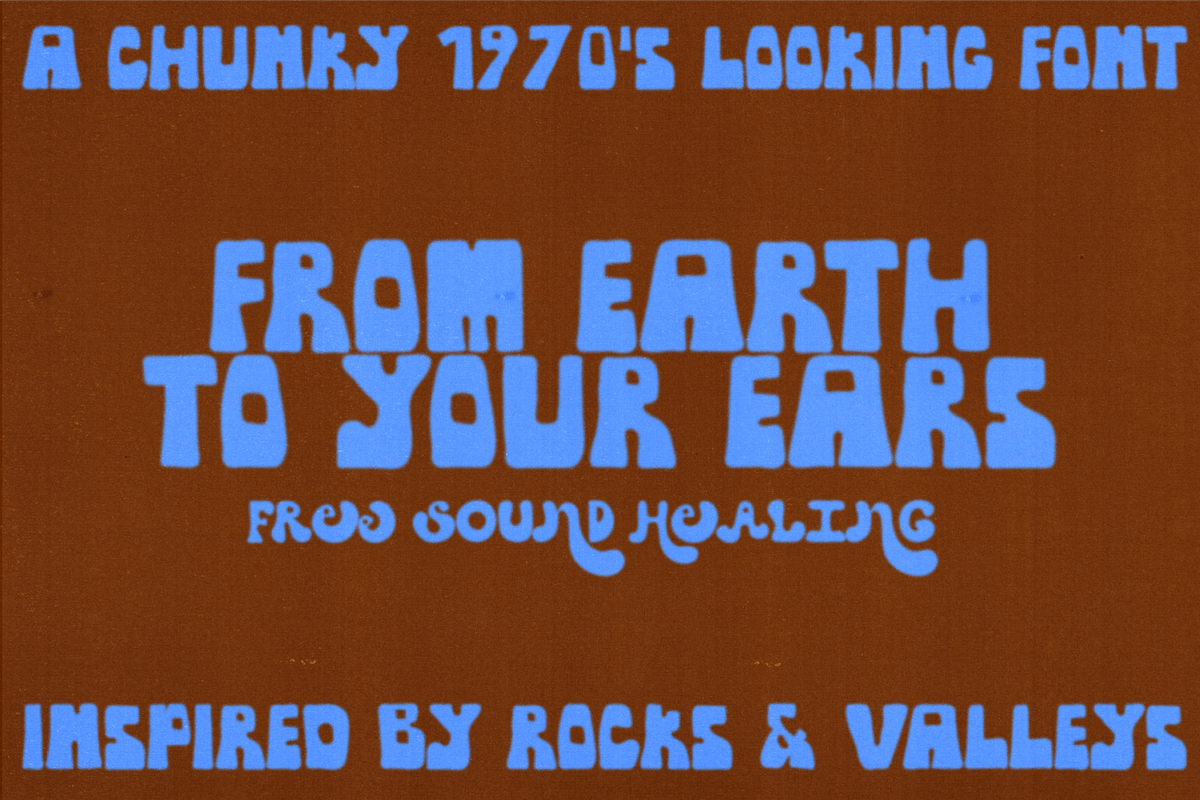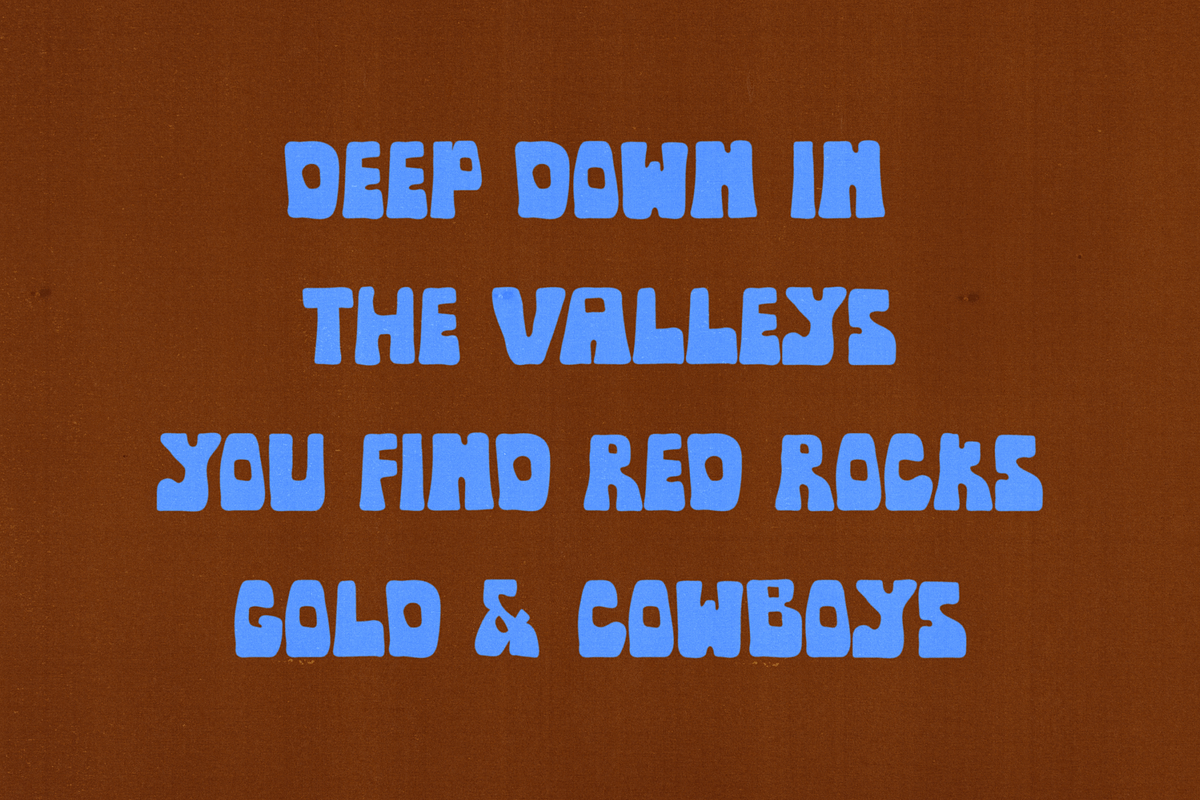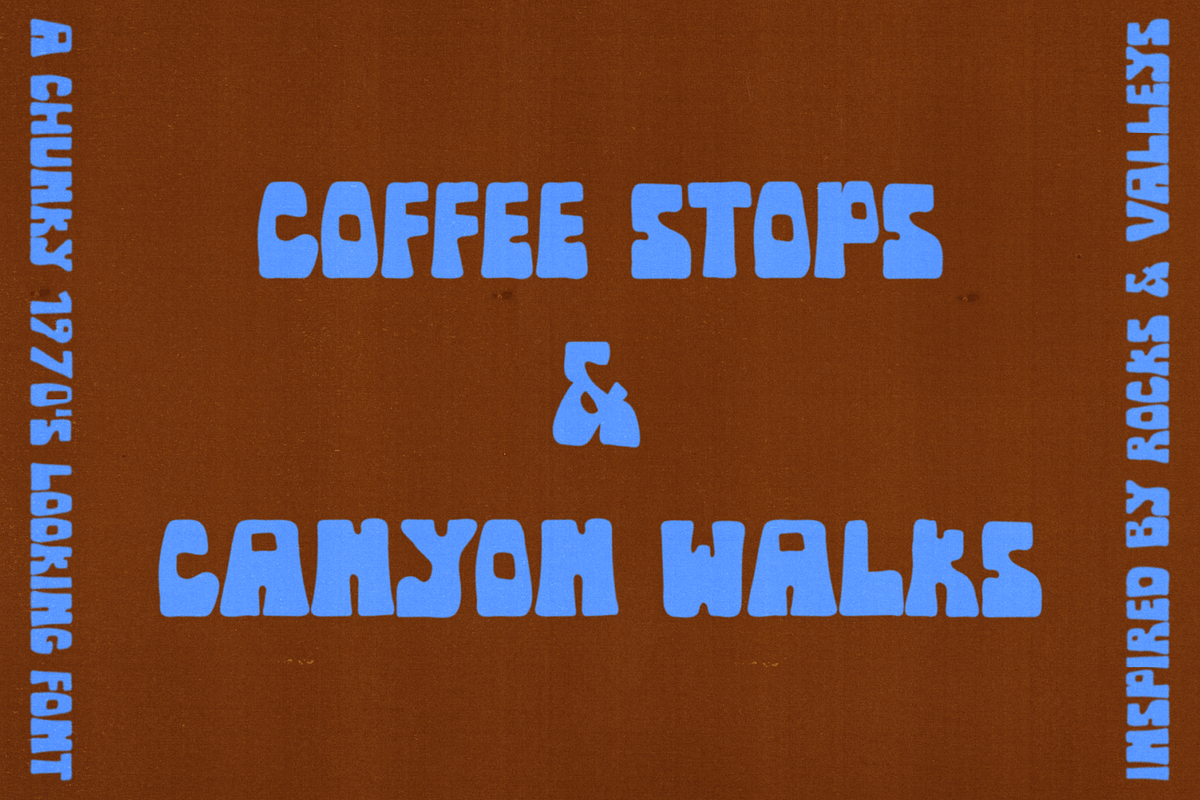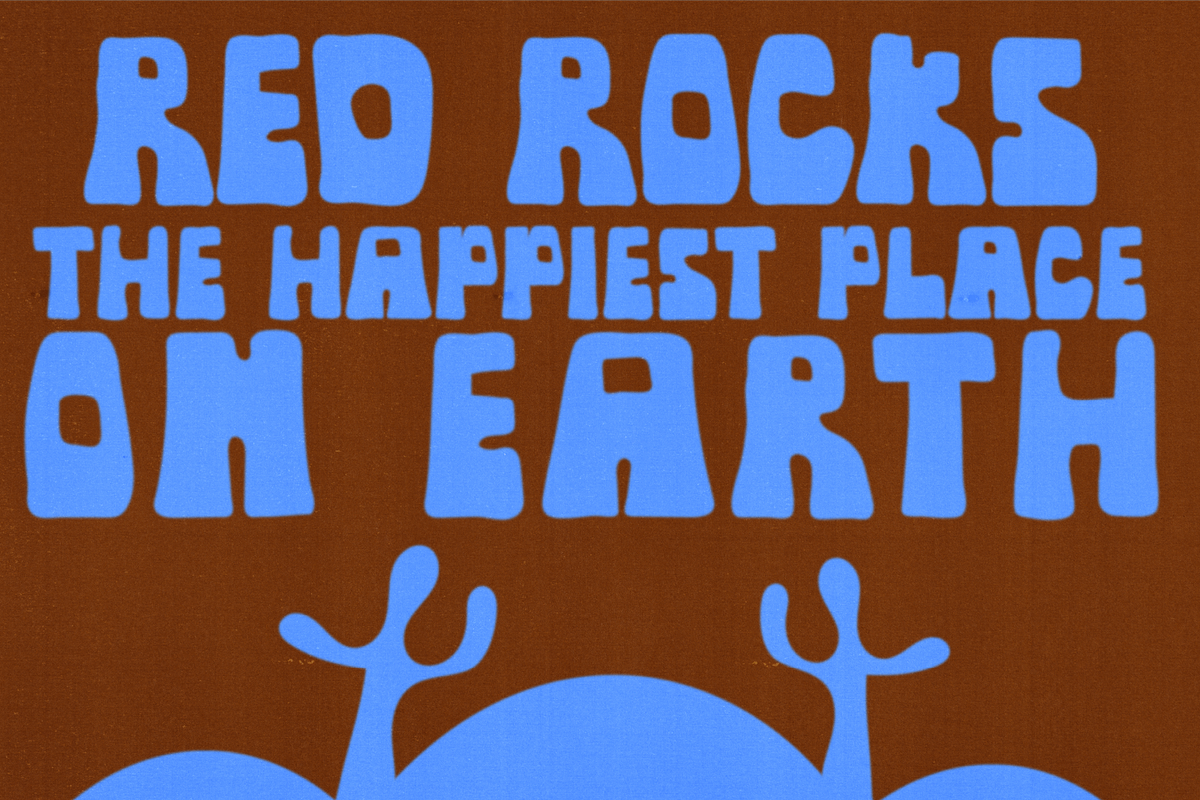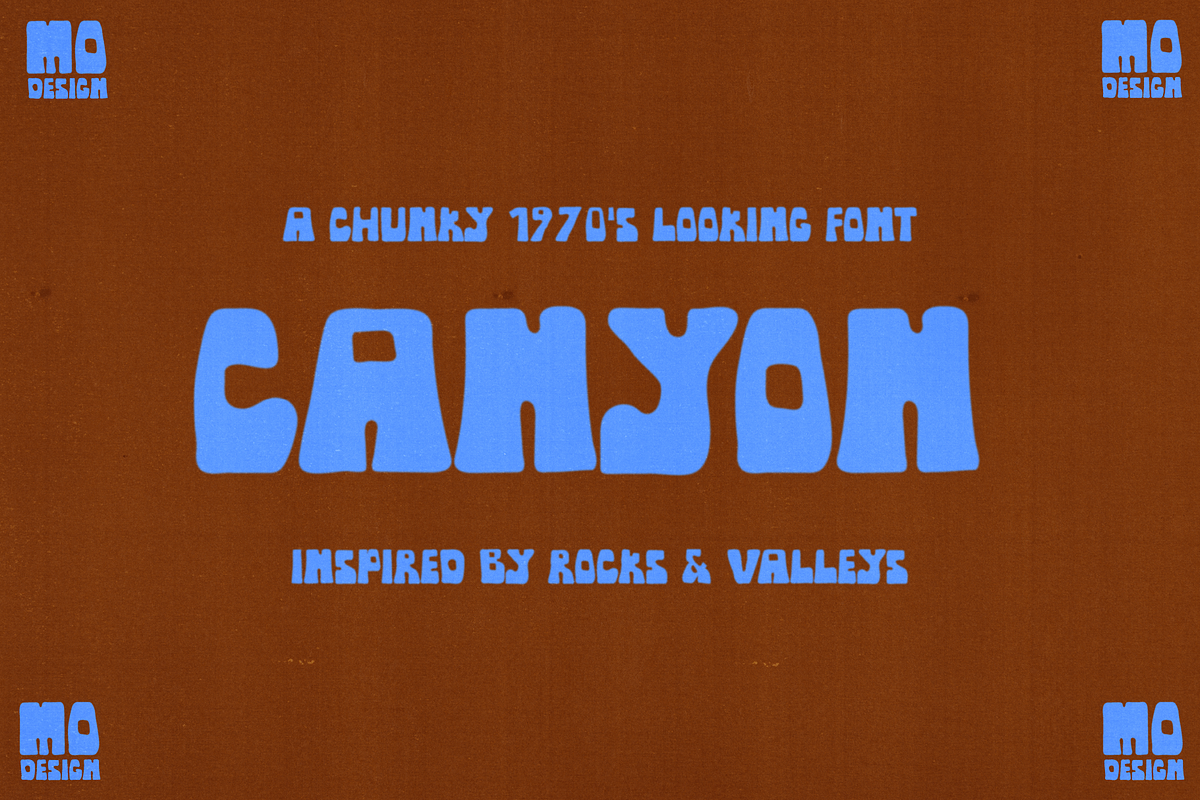
CANYON | HAND DRAWN FONT
CANYON Hand Drawn is an all-caps, bottom-heavy display font inspired by the solid weight of clay on a potter’s table. The letterforms draw influence from desert landscapes—natural rock formations, adobe houses, and chunky textures found in canyons and western terrains.
Originally hand-drawn for a potter working with clay, this display font extends their custom logo into a full alphabet. With thick, grounded shapes and a subtly retro 1970s feel, CANYON is ideal for projects that need an earthy, bold, and slightly soft western tone—perfect for designs with a Santa Fe, roadside, or hand-crafted aesthetic.
CANYON brings a natural, hand-made quality with just the right amount of western character.